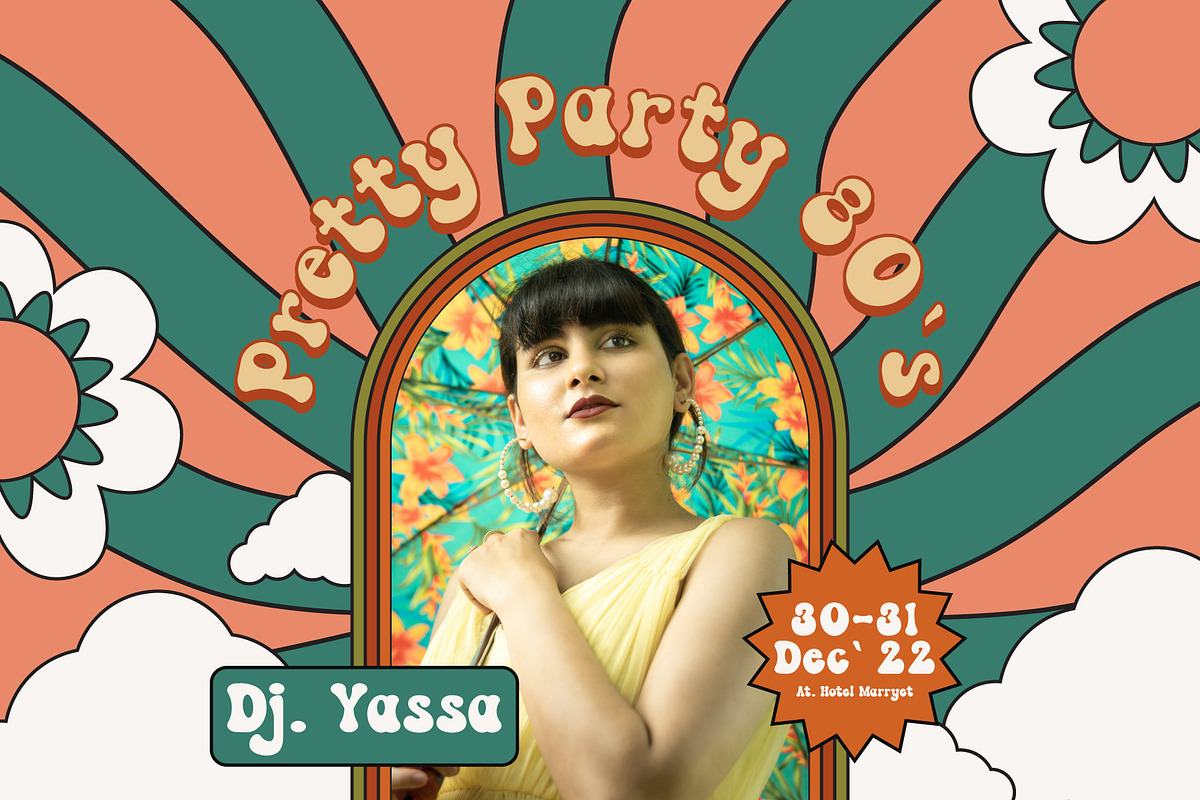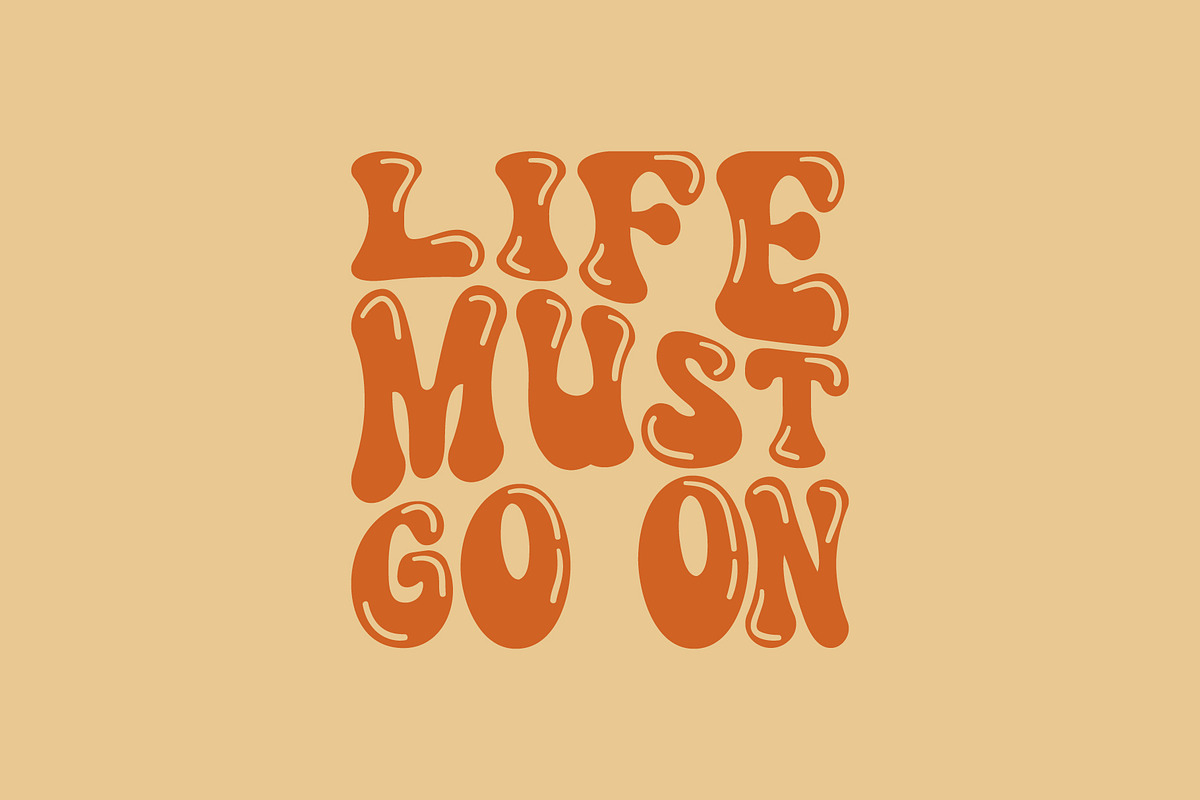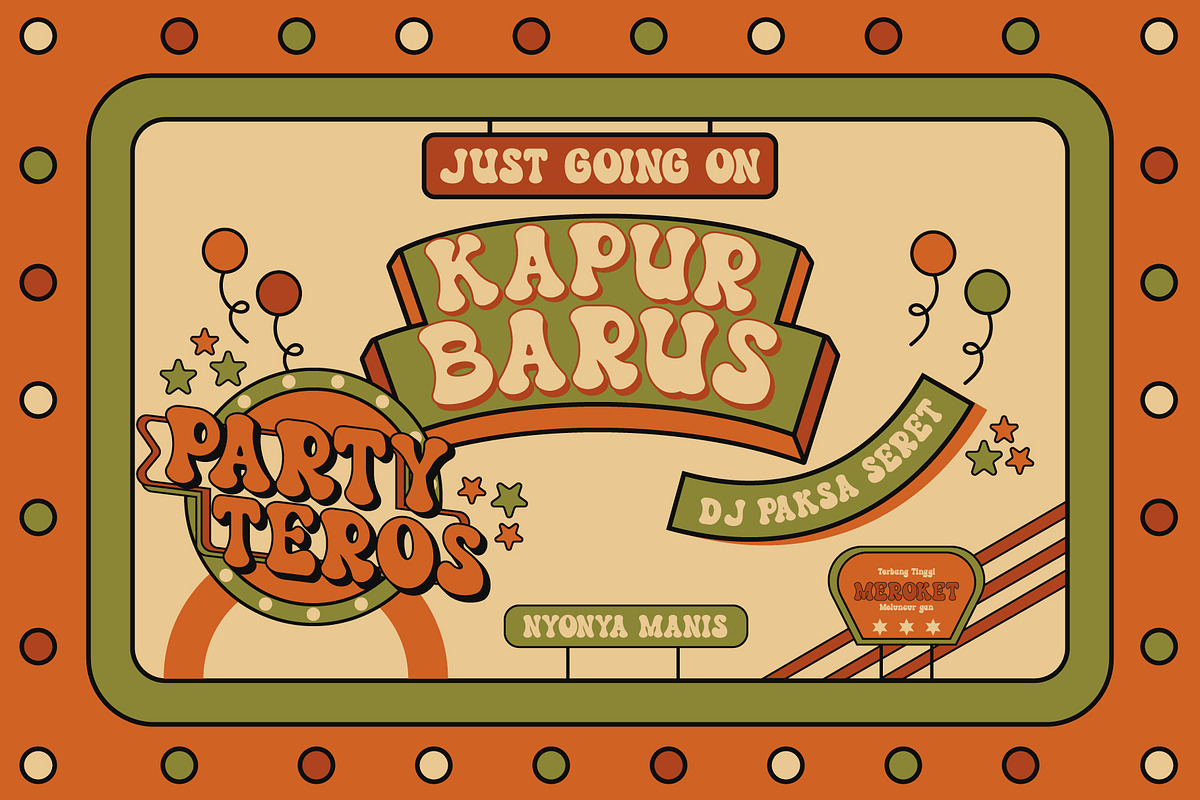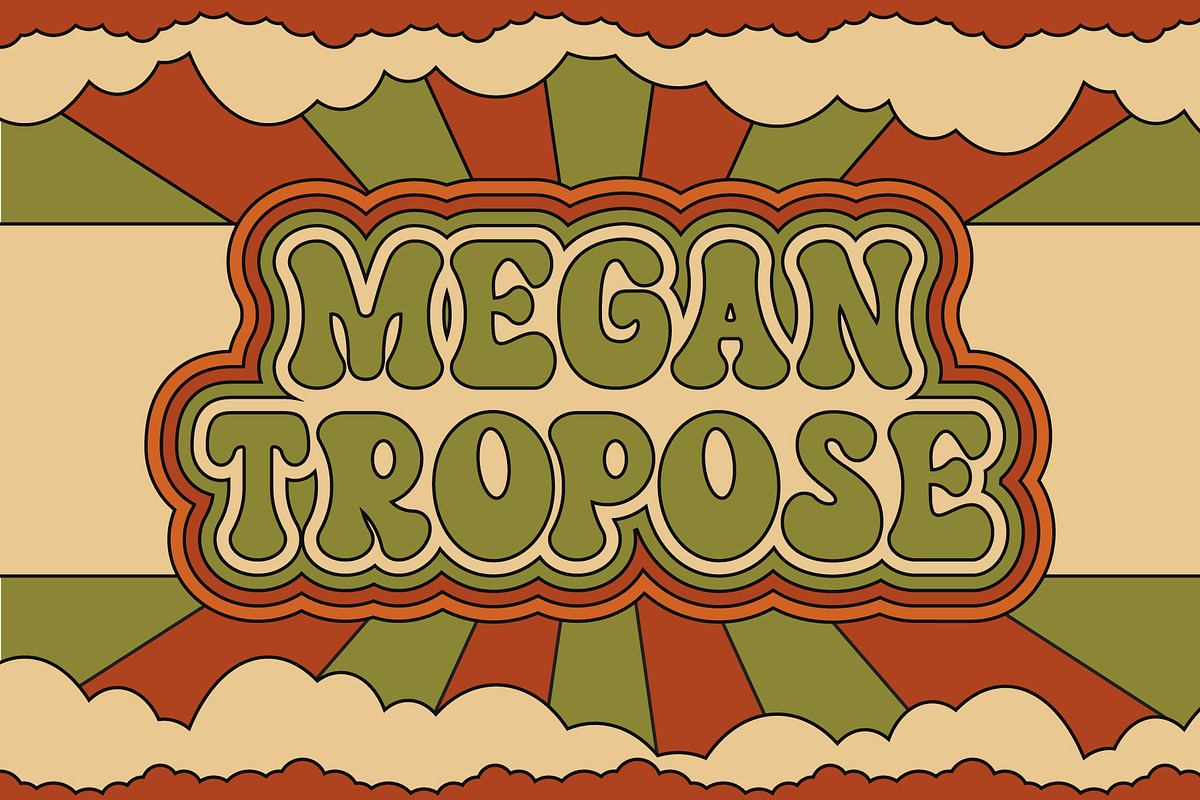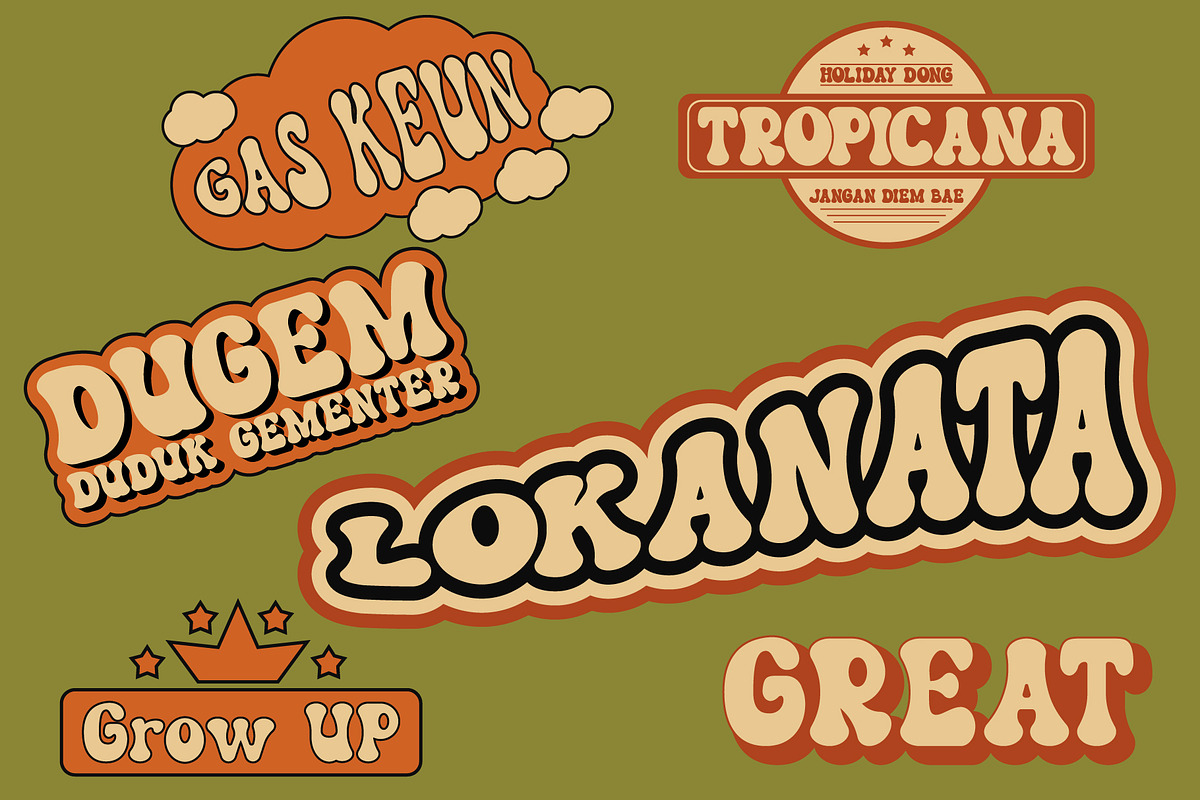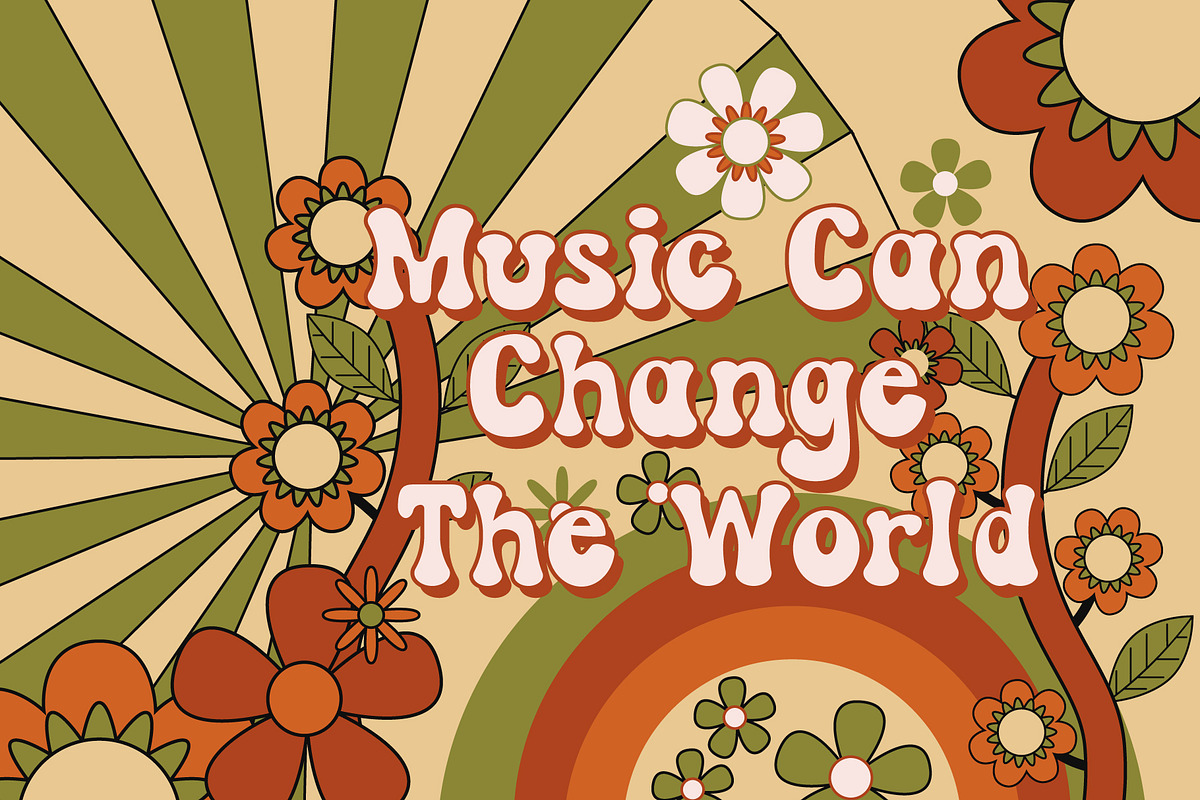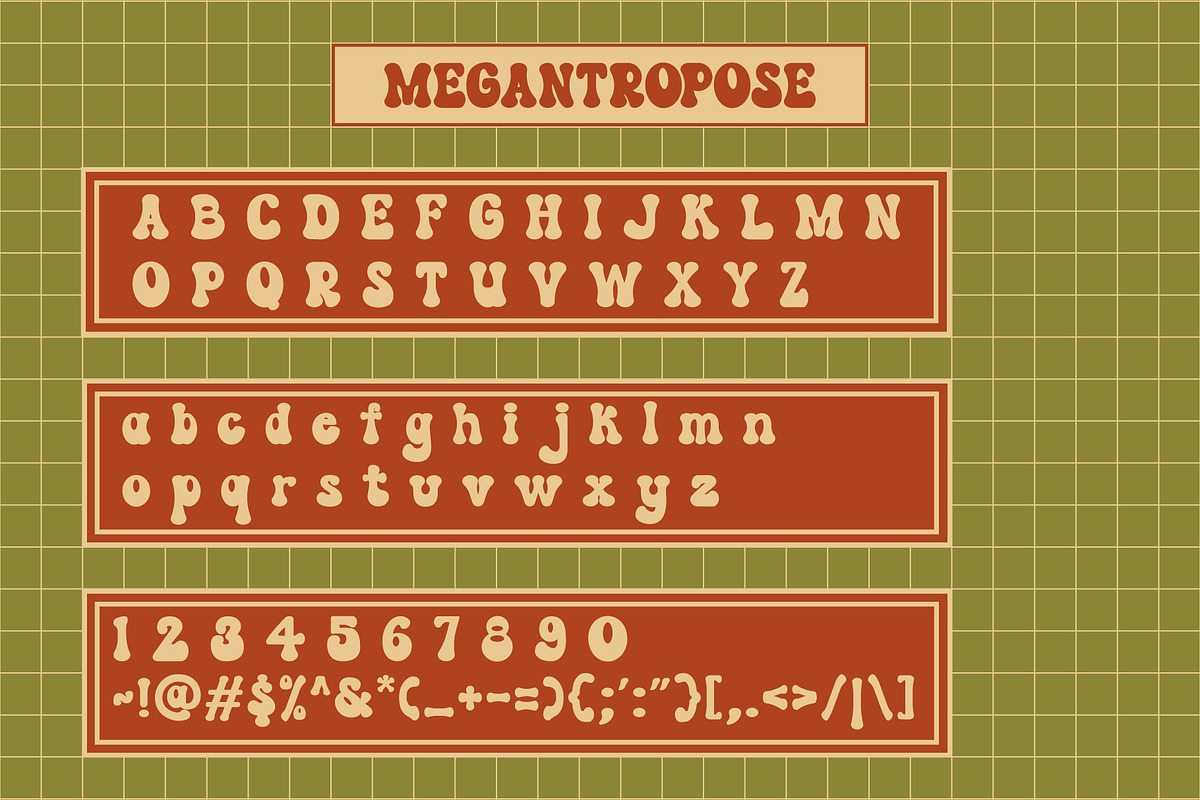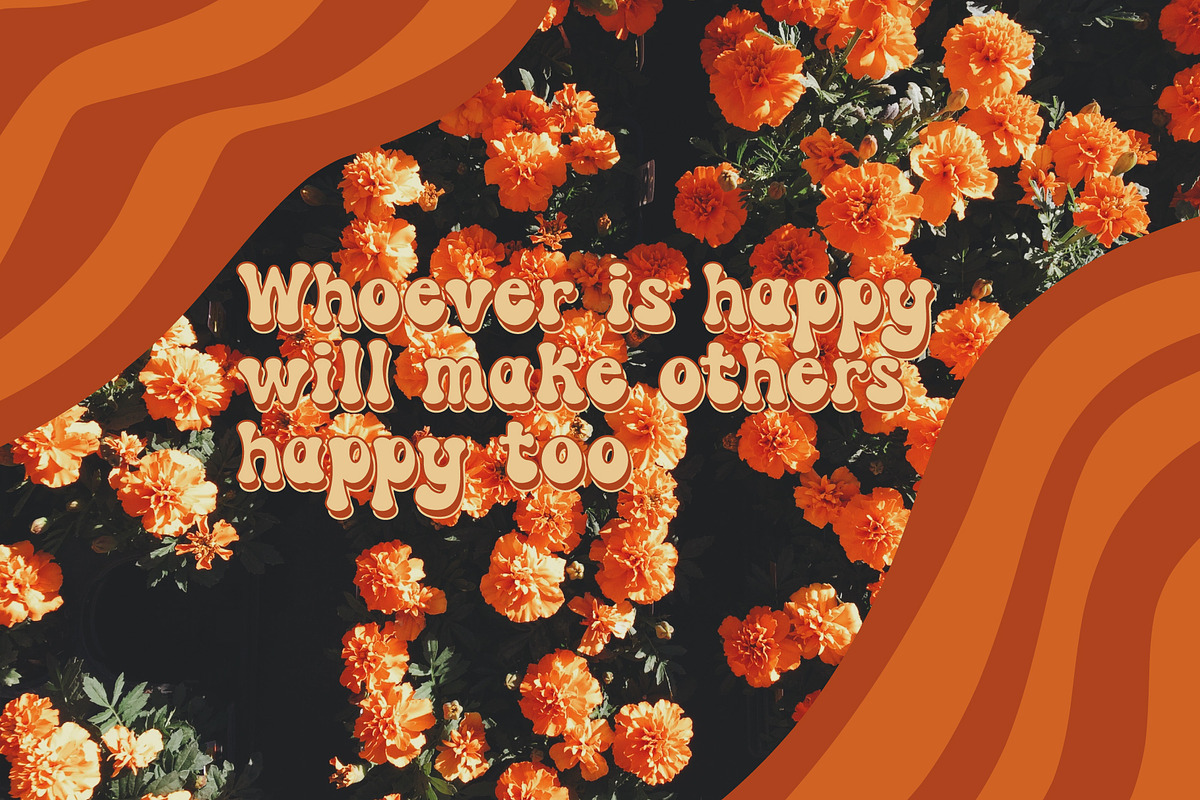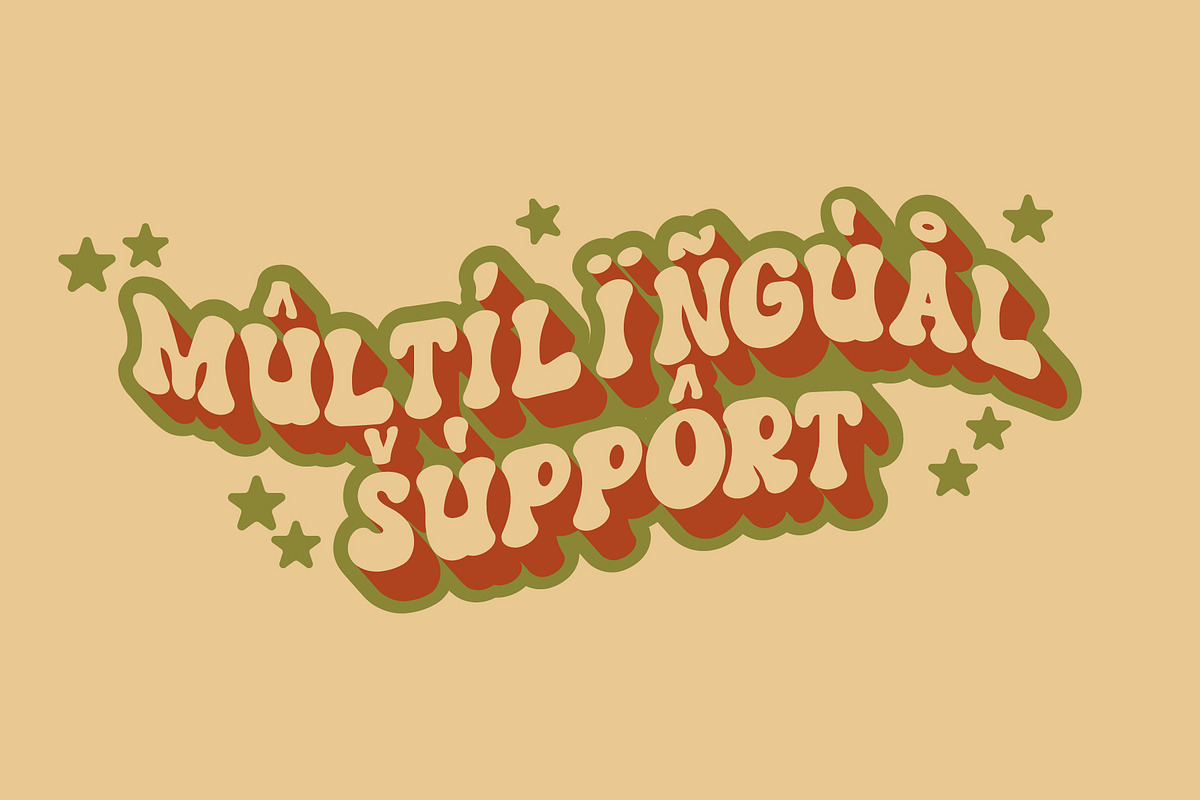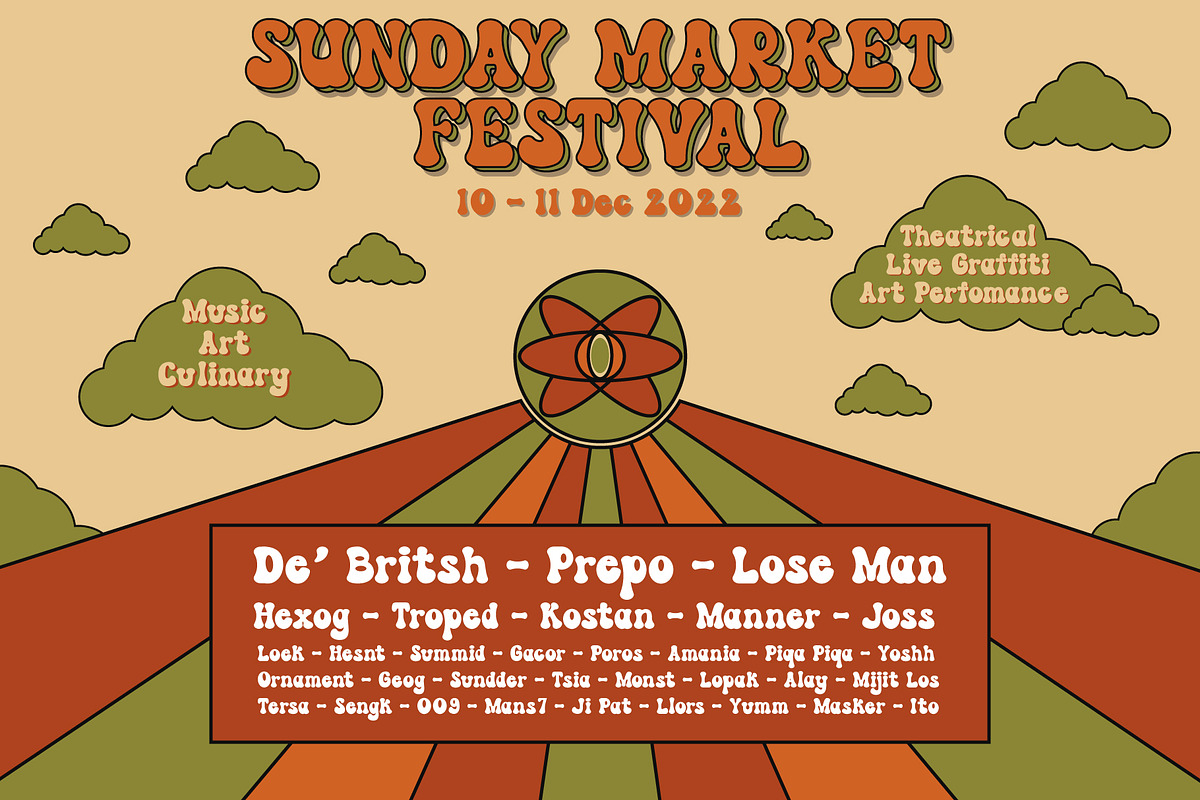
Megantropose
MEGANTROPOSE is a font inspired by the retro 70's - 80' style with the current trend which is very much in demand by agencies to make their work more extraordinary. for that, we help designers find their mood board design to be cooler. You can incorporate this font into your designs such as posters, Instagram posts, YouTube banners, merchandise, logos, design quotes, to movie titles.